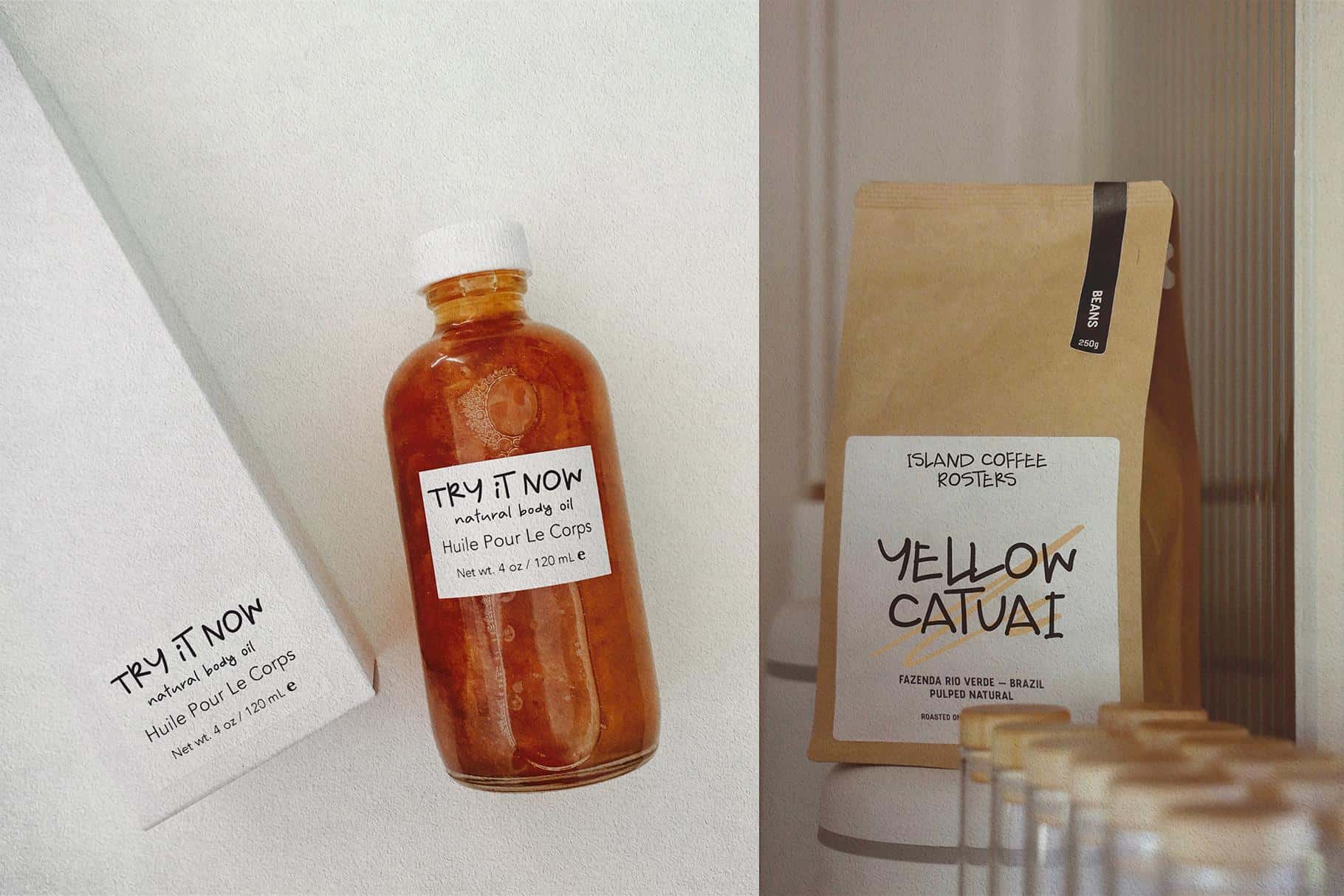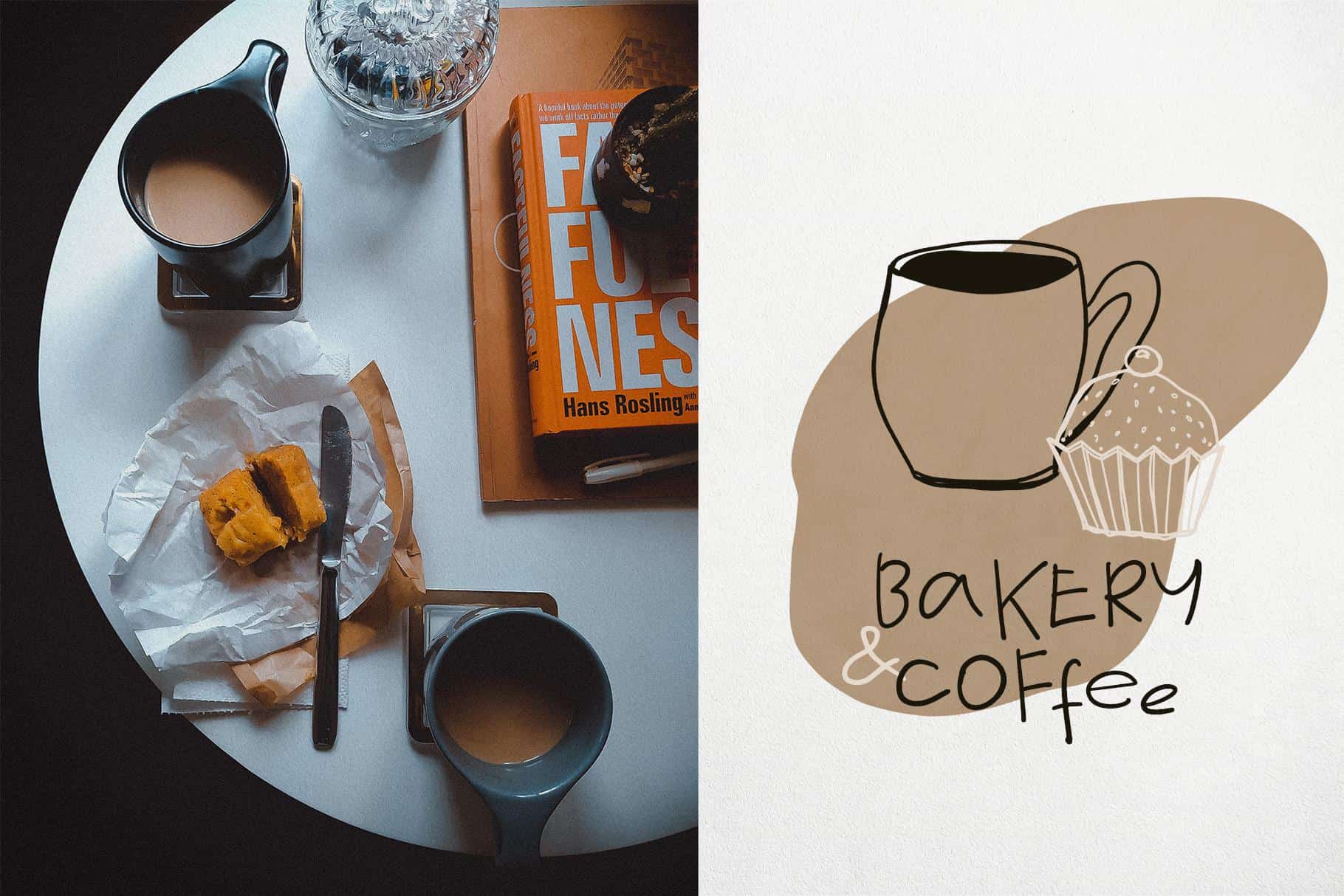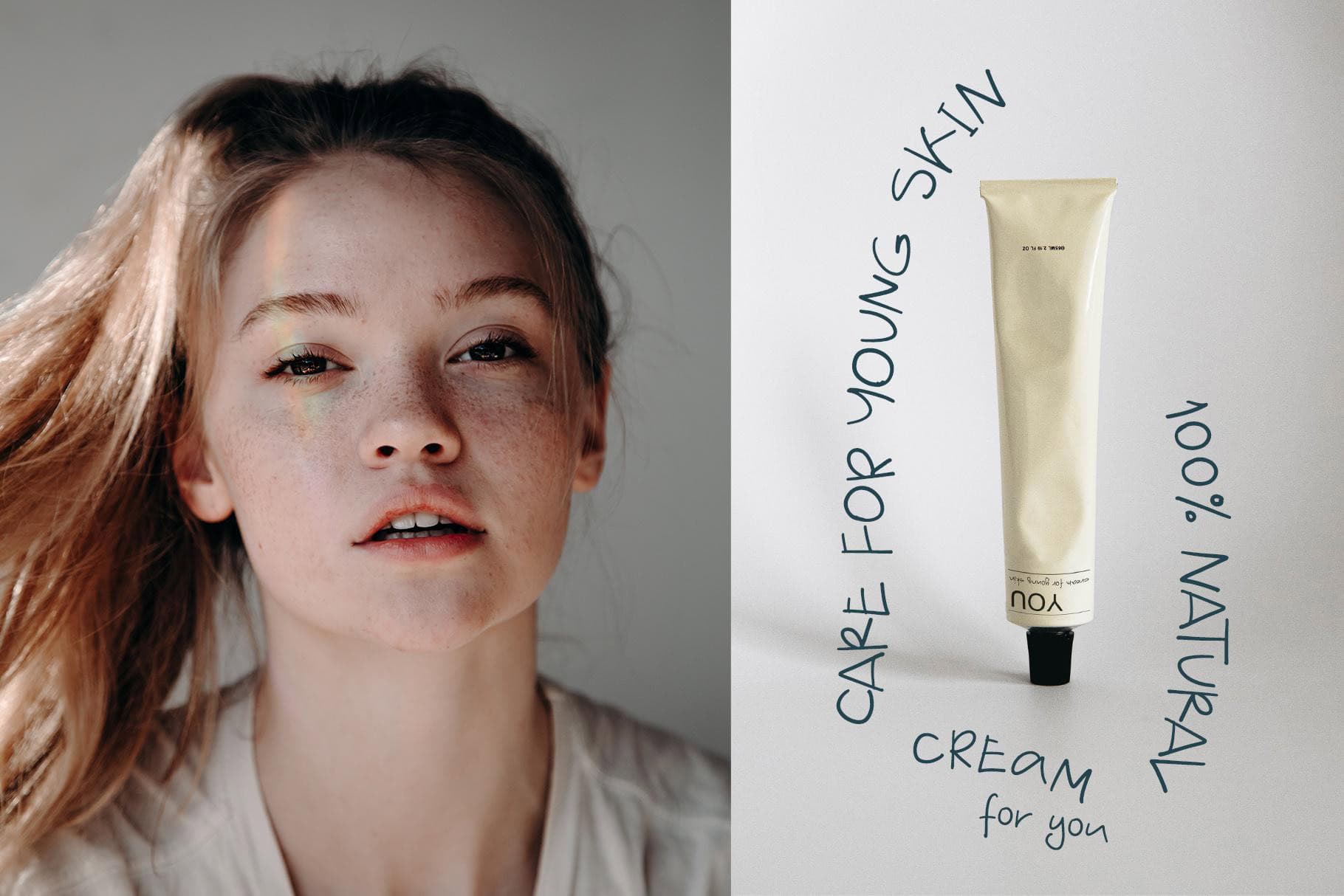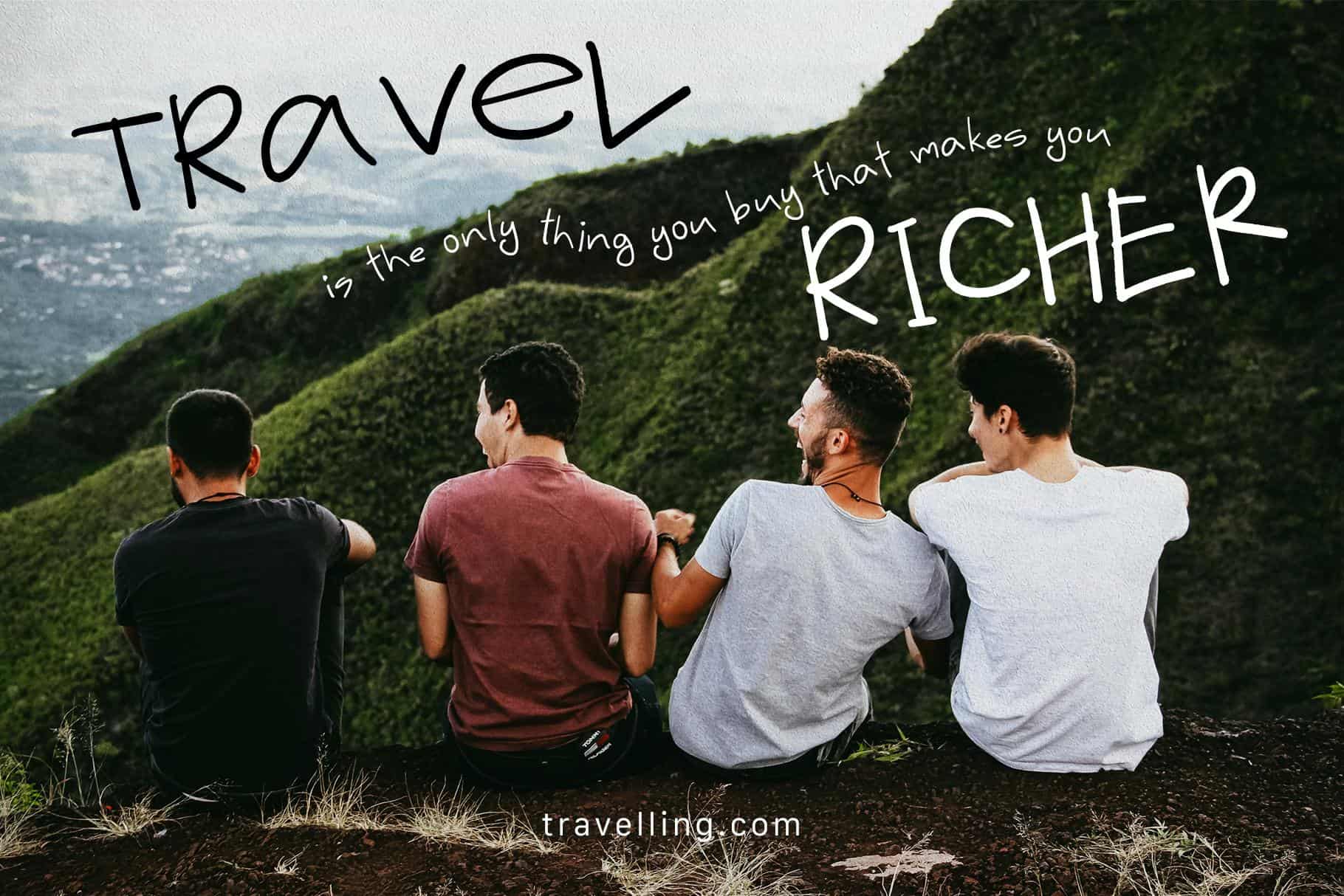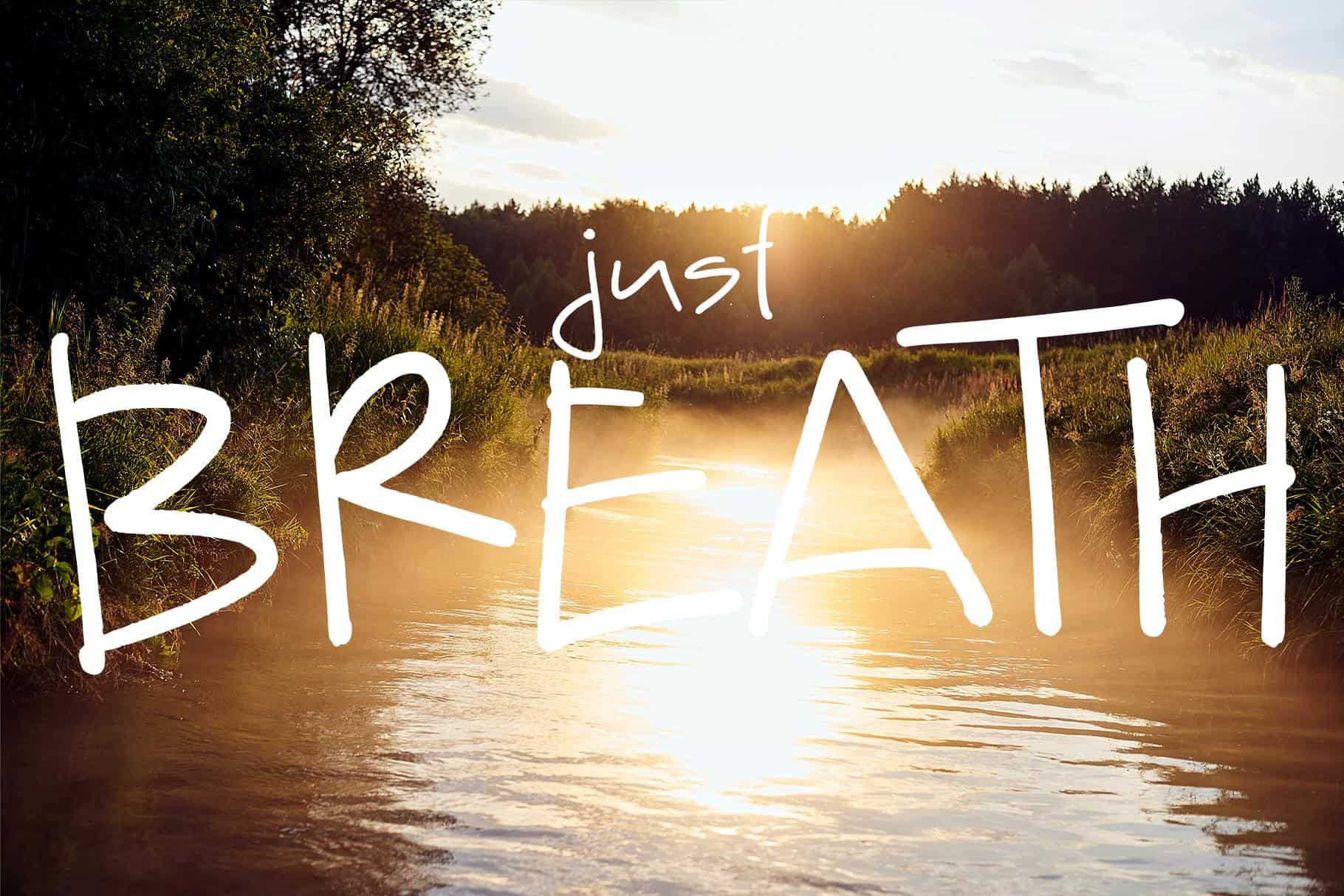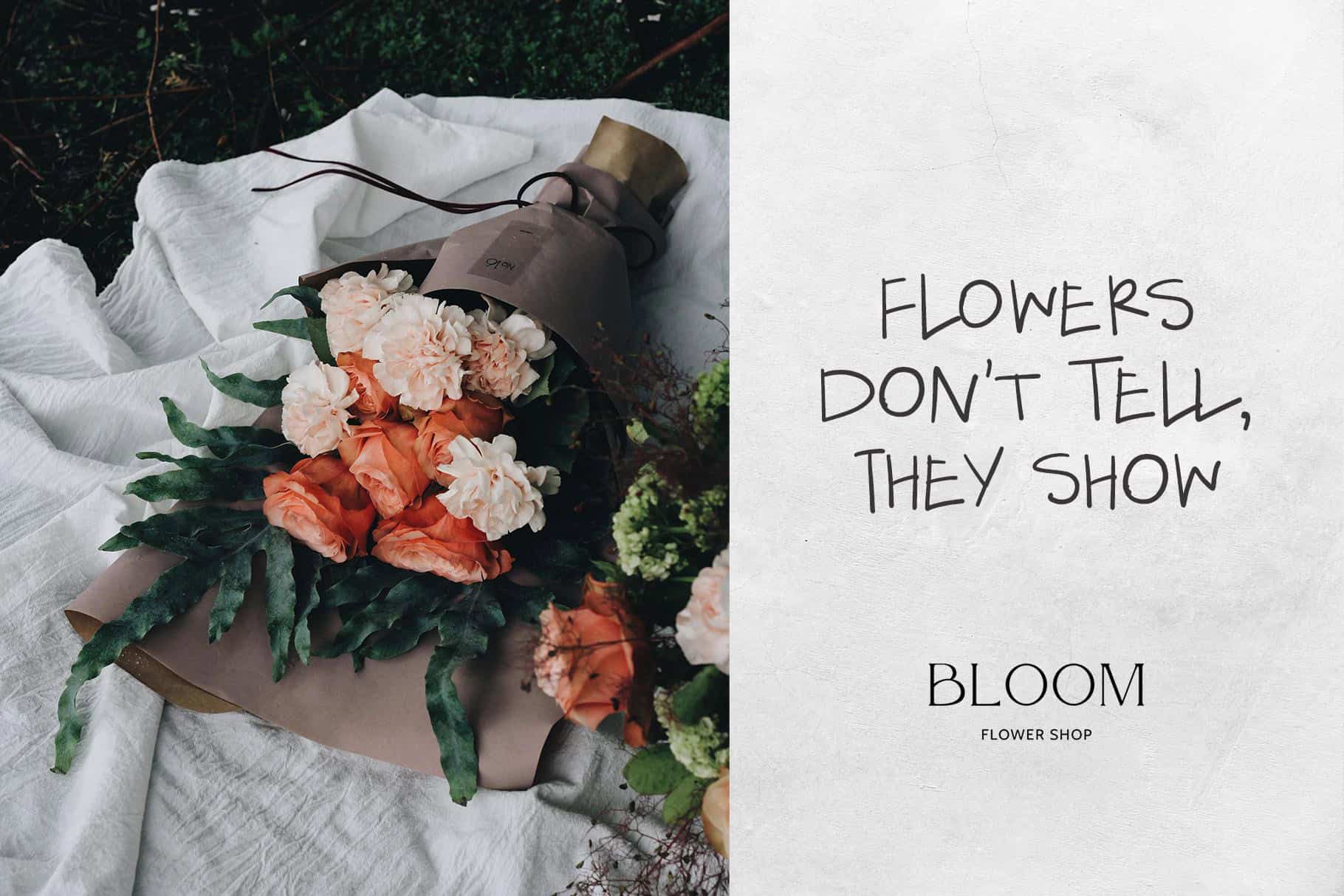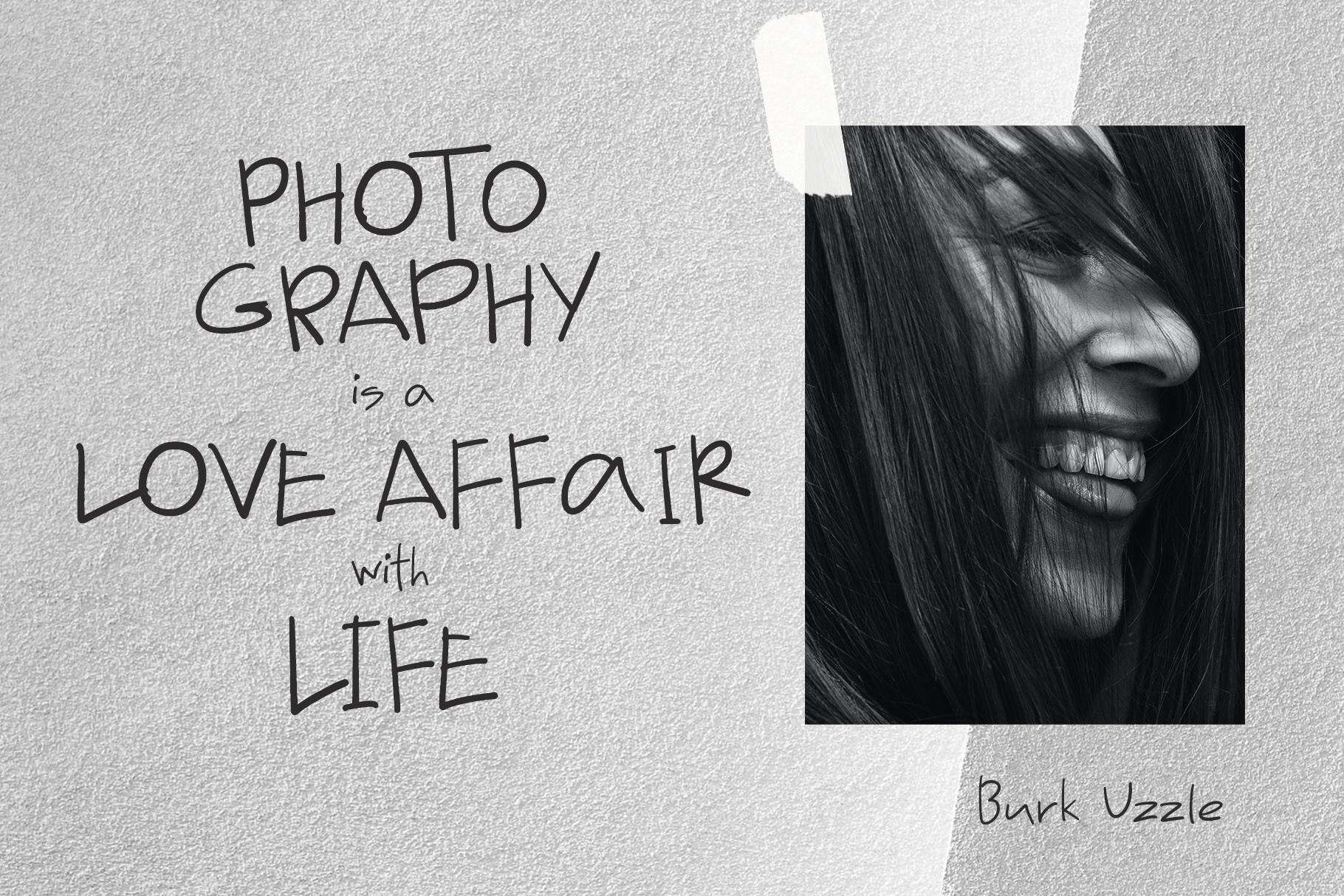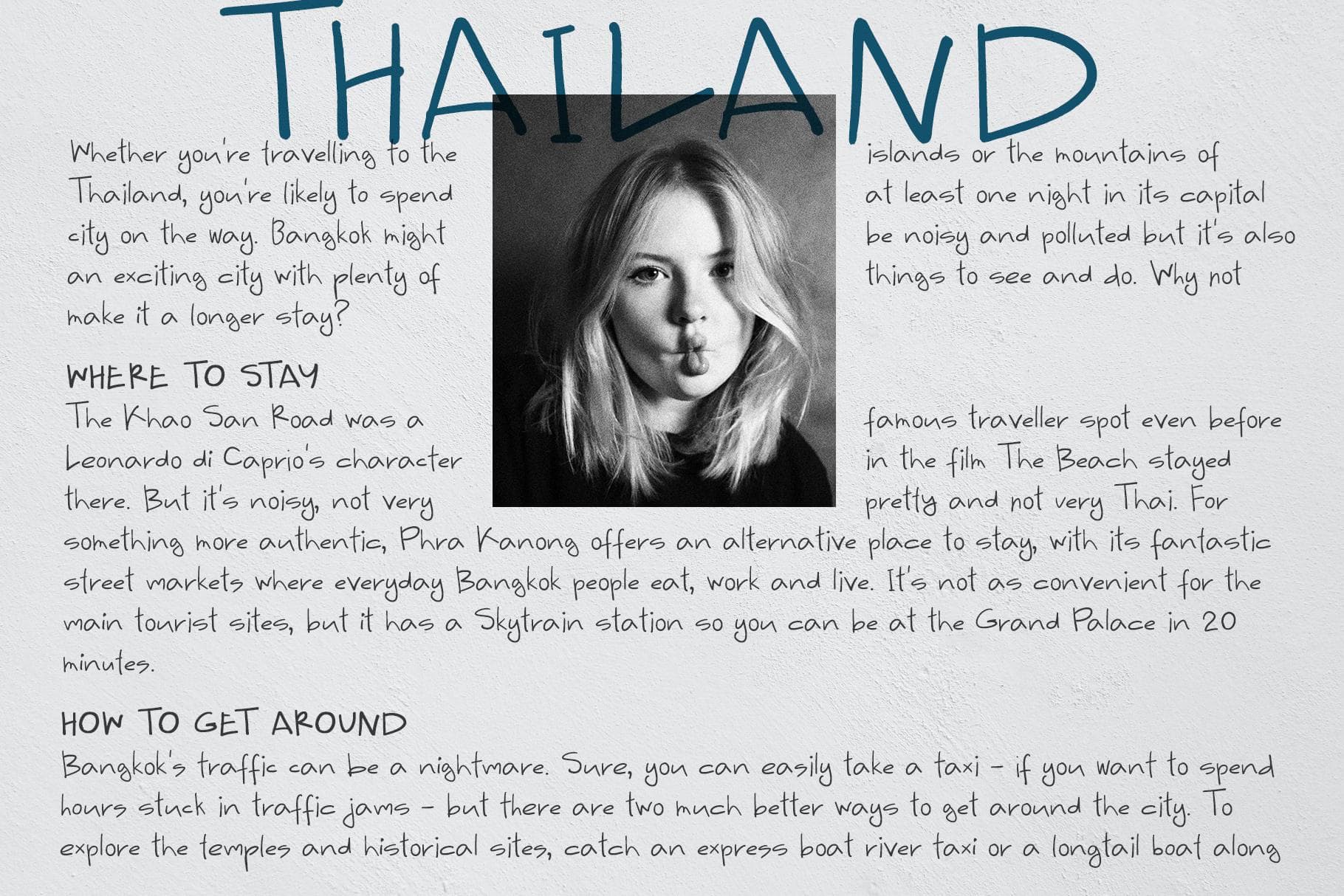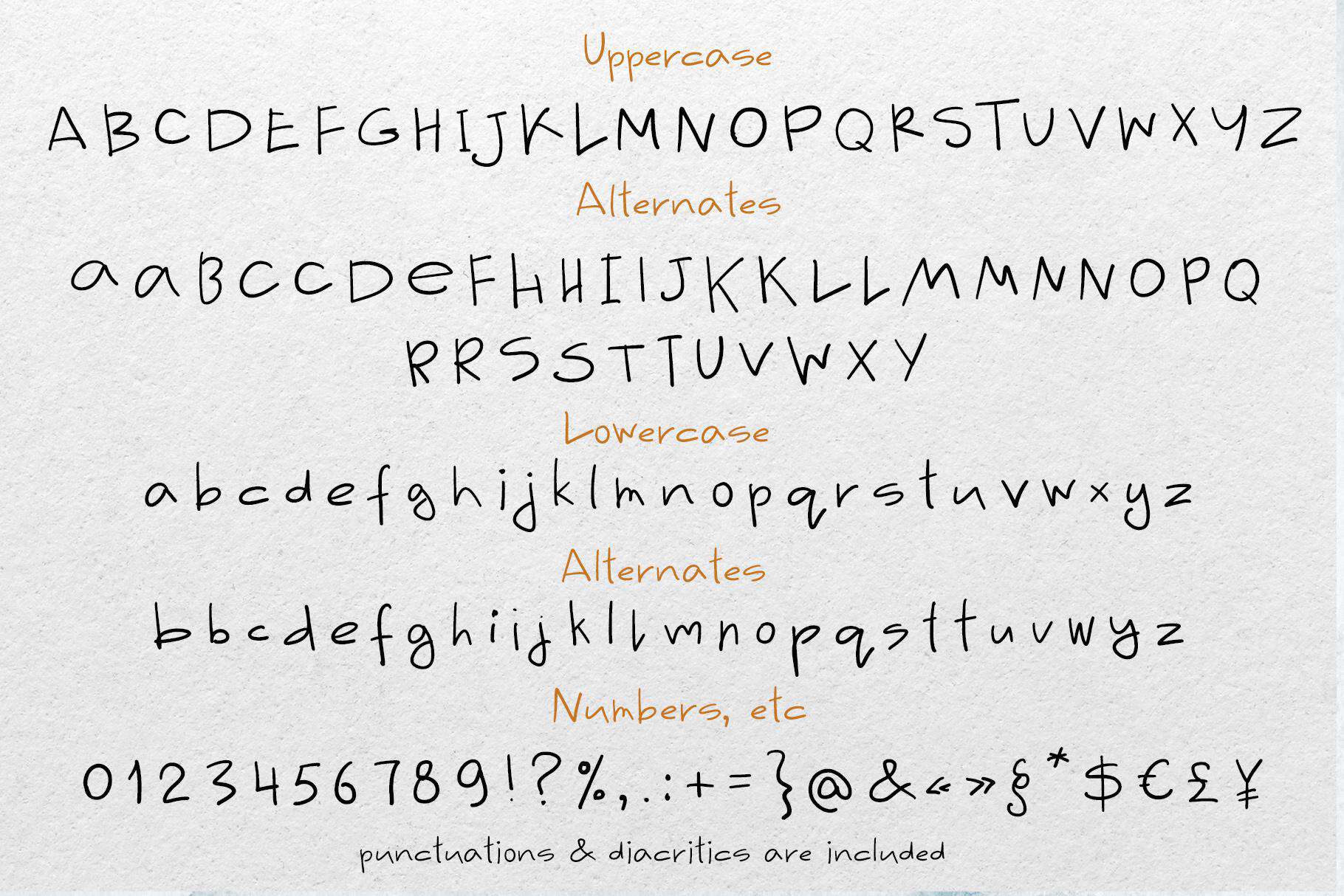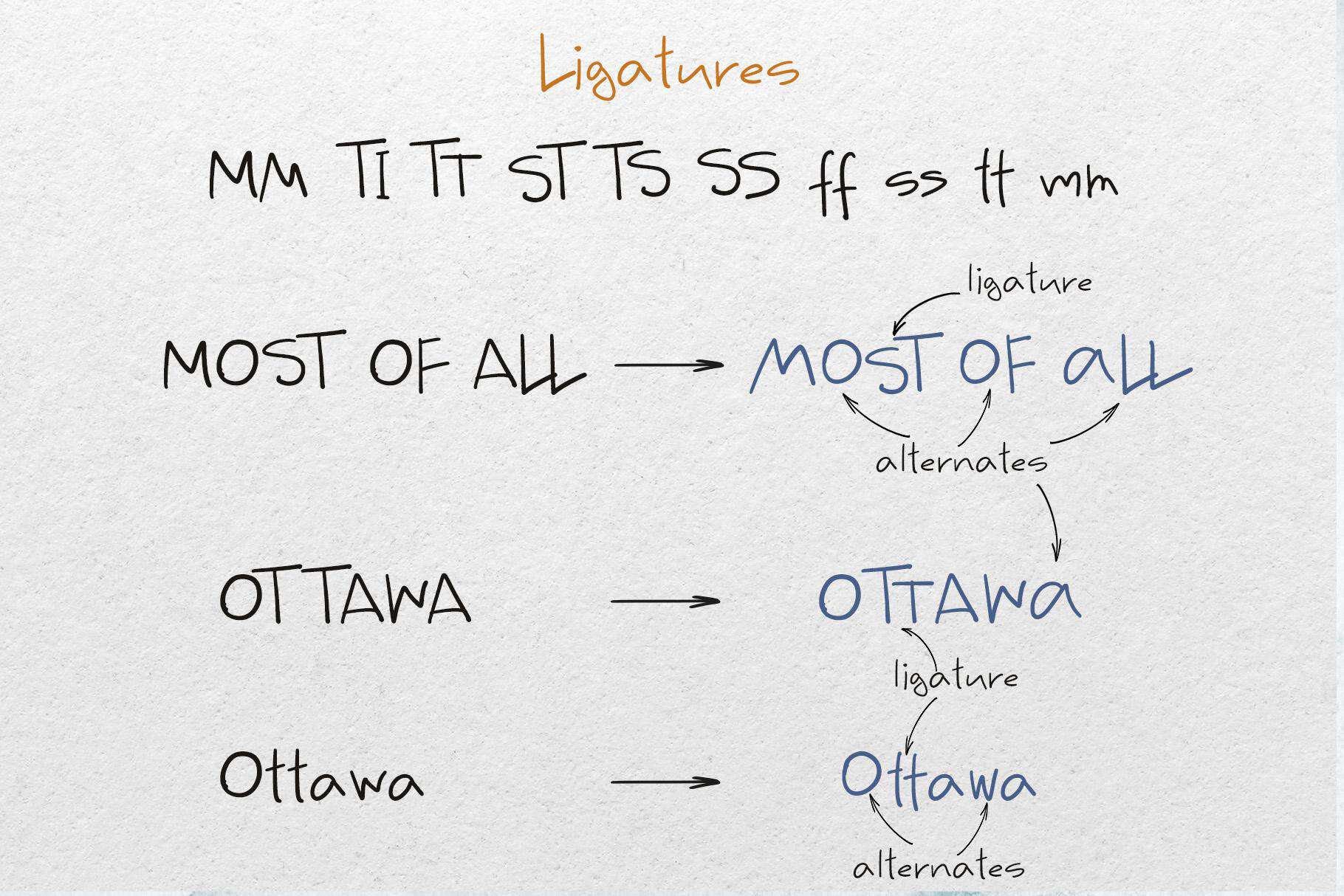
MONTI handwriting textured font + food and floral extras
MONTI is a handwritten font made with textured brush marker
MONTI is a handwritten font made with textured brush marker. MONTI includes stylistic alternates for uppercases & lowercases, ligatures, food & floral illustrations. The font is suitable for the design on the different themes includes logo design, packaging.
MONTI has extensive language support, it includes English, French, German, Italian, Spanish, Portuguese, Danish, Norwegian, Swedish, Finnish, Estonian, Romansh,Turkish.